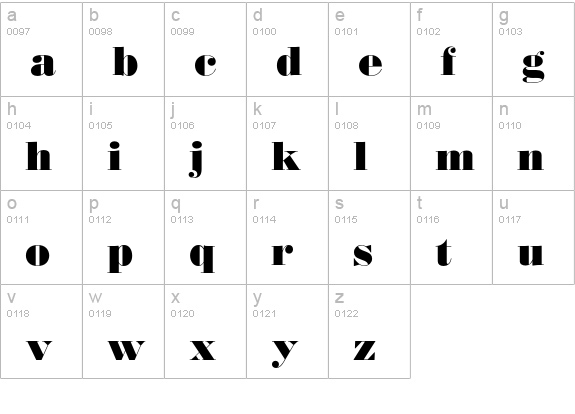
Bodoni Ultra Bold Font Details
Bodoni Ultra Bold is an extreme-weight, display variant in the Bodoni typeface family \xE2\x80\x94 well suited to extreme display use where maximum visual weight is required.
Bodoni Ultra Bold is a striking and powerful font that exudes confidence and sophistication. With its thick, bold strokes and sharp serifs, this font commands attention and leaves a lasting impression. Perfect for headlines, titles, and other prominent text, Bodoni Ultra Bold is sure to make a statement in any design project. And the best part? It's completely free to download at FontsMarket.com! So go ahead and add this impressive font to your collection today and take your designs to the next level.